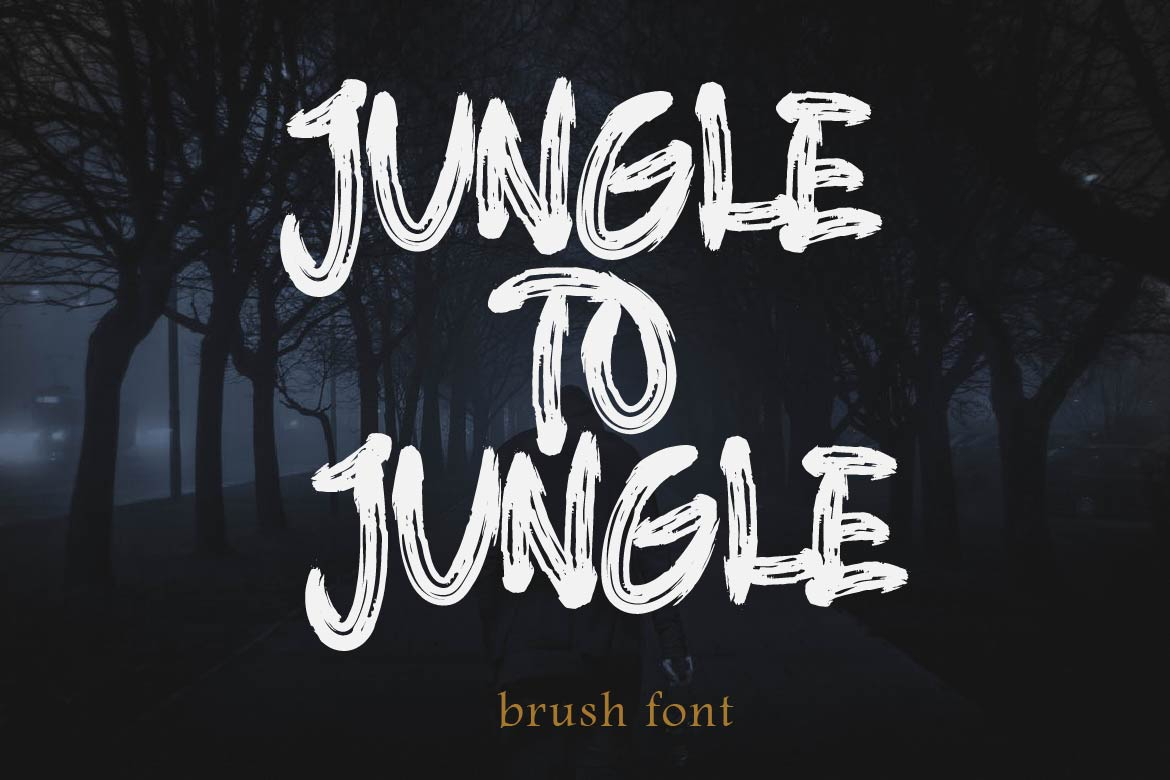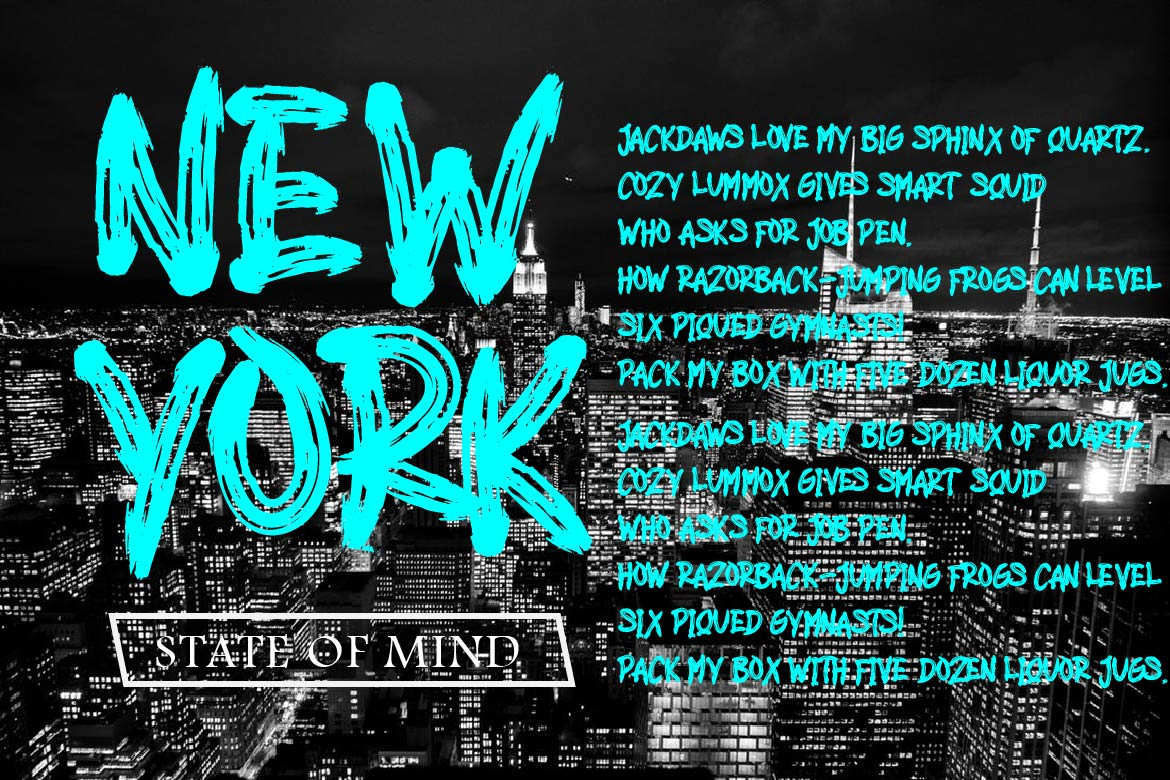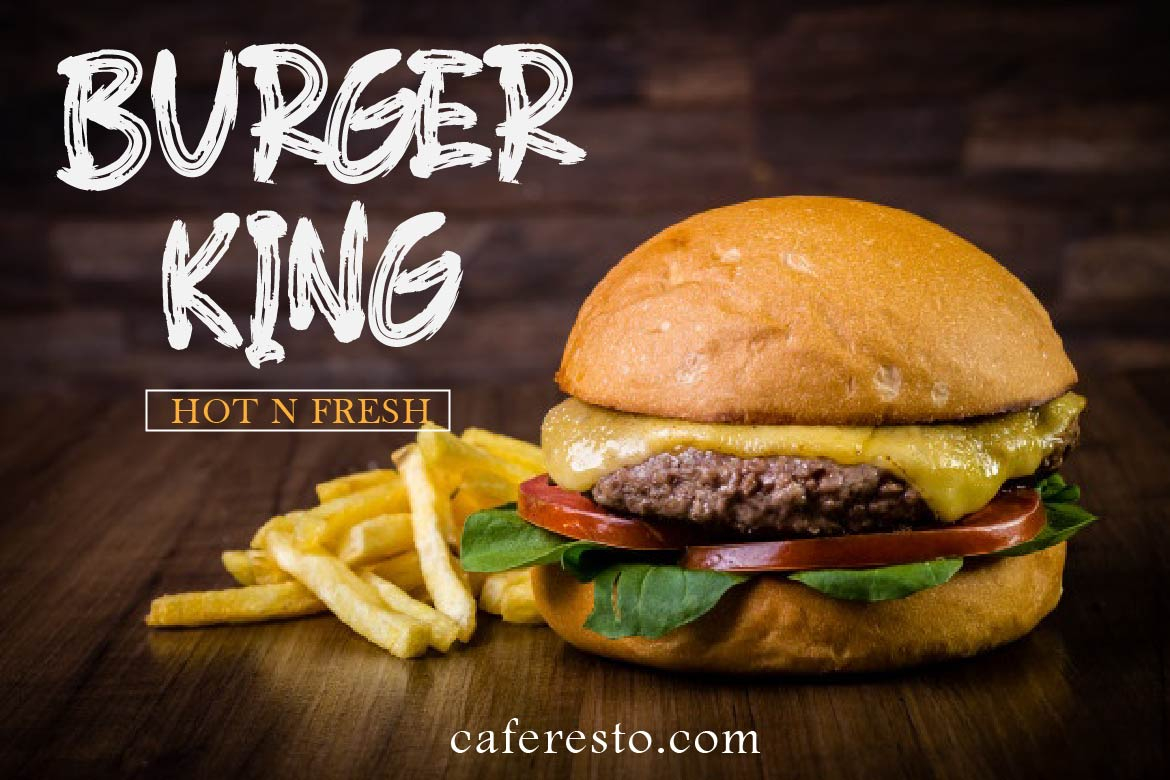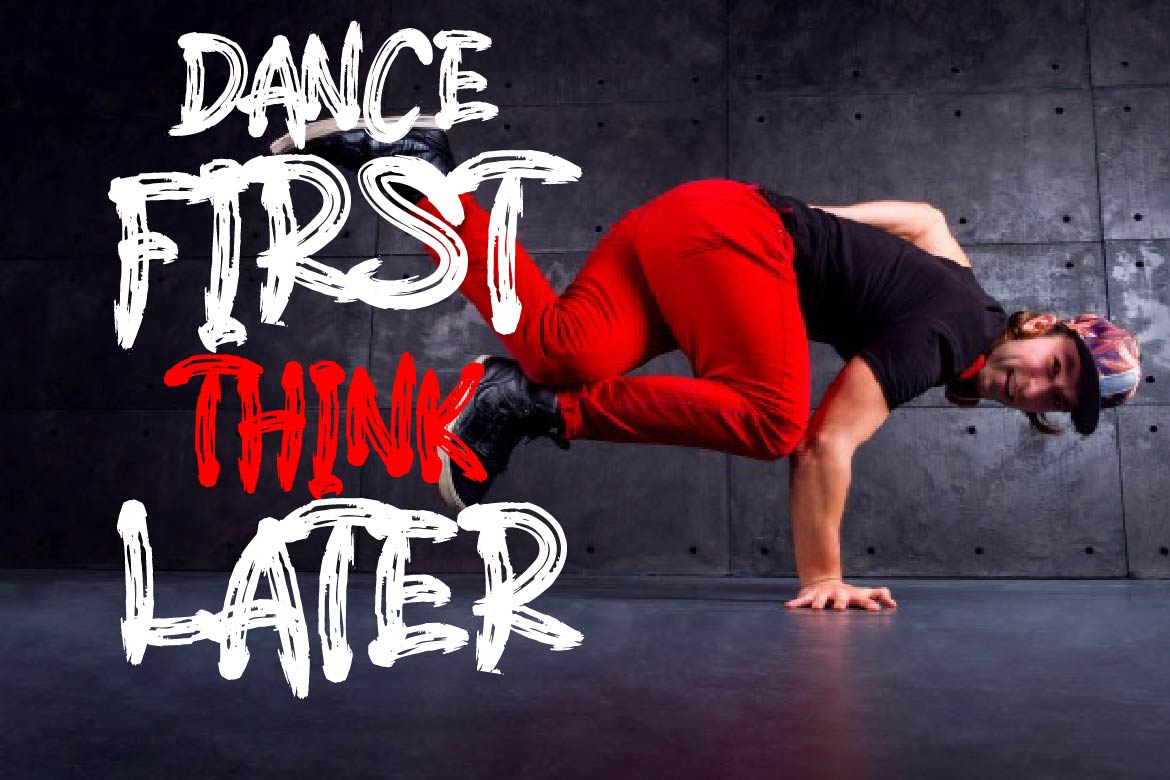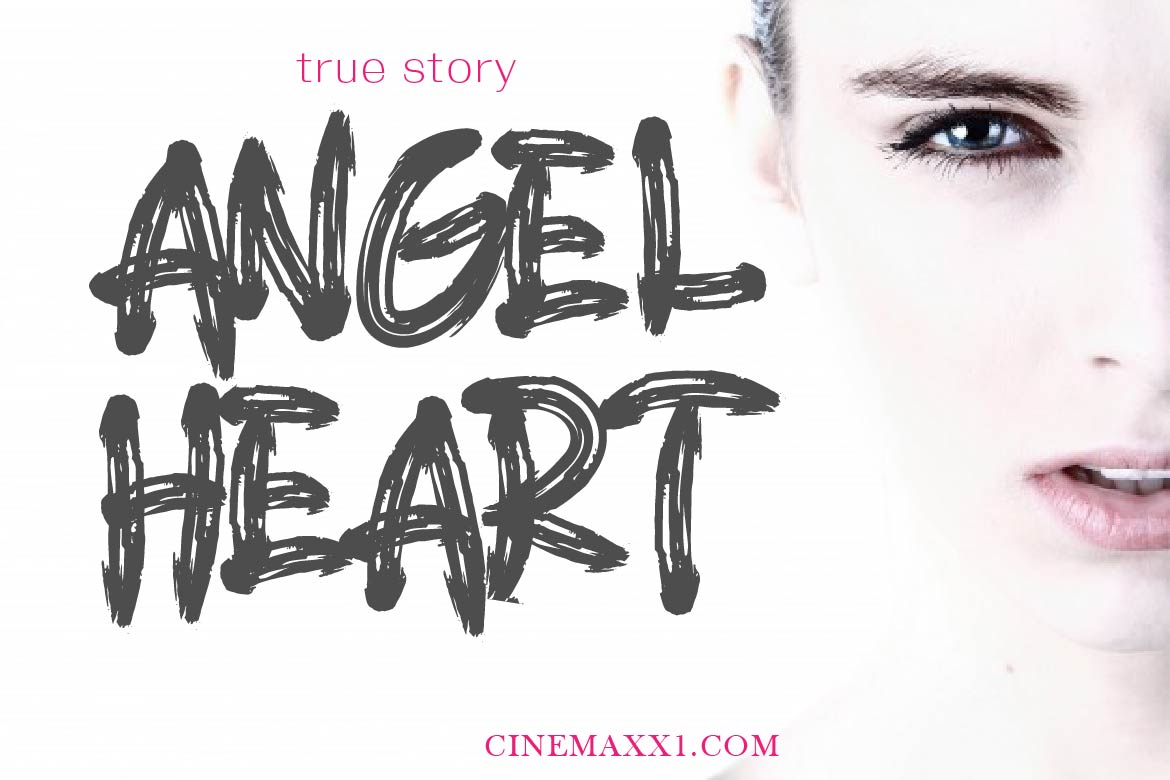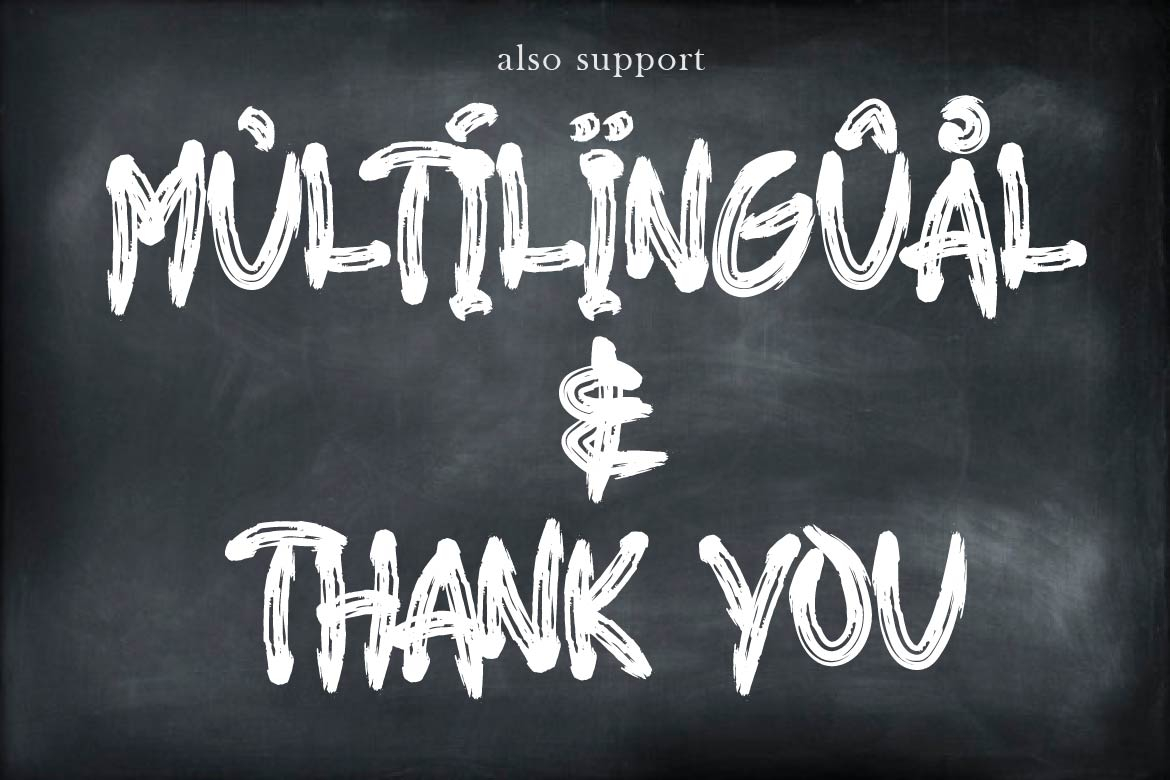
Jungle to Jungle Font
About Jungle to Jungle Font
Jungle to Jungle is a natural and authentic font that’s great for delivering any message with confidence and style. Get inspired by its unique charm!